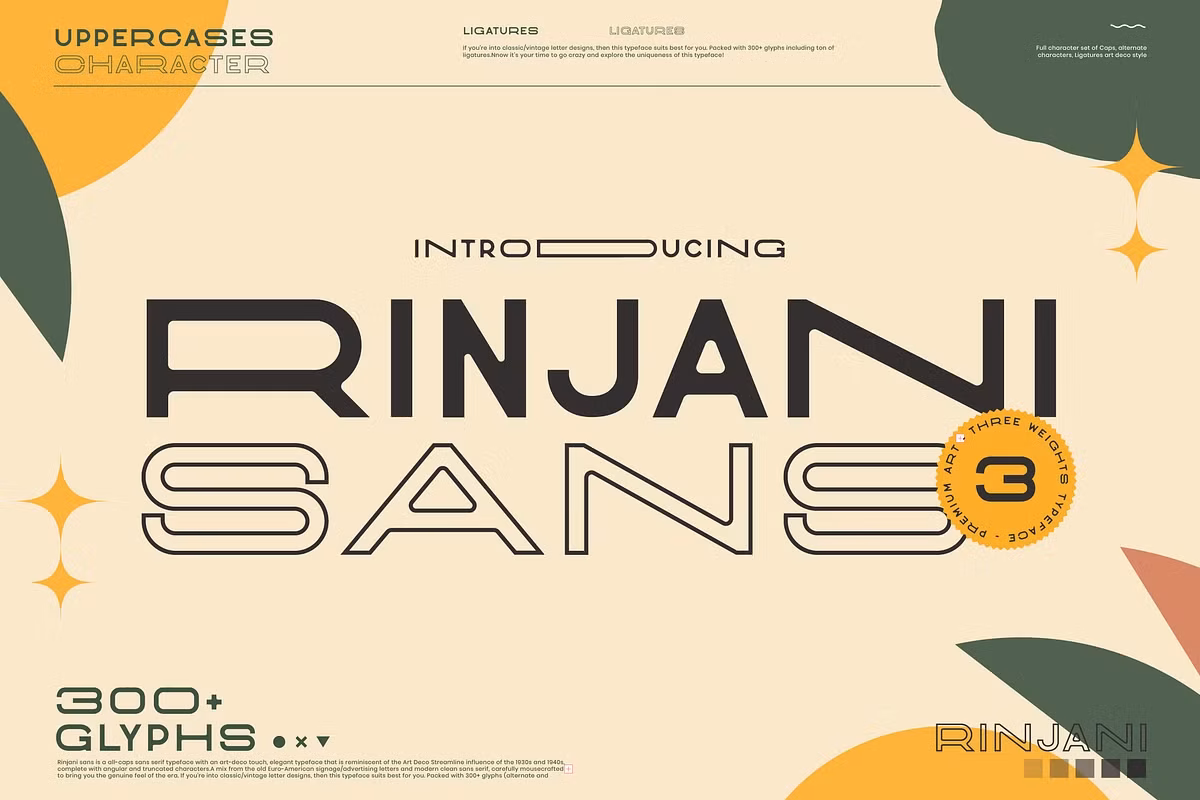
Rinjani Sans - Wide Stretch Typeface Free Download
Rinjani Sans – Wide Stretch Typeface Free Download
Rinjani Sans – Wide Stretch Typeface Free Download is a bold and modern sans serif font designed with wide proportions and clean, geometric lines. Ideal for powerful headlines, branding, posters, website headers, and logo design, Rinjani Sans commands attention while maintaining sleek professionalism.
Its extended width gives text a confident, grounded presence, making Rinjani Sans – Wide Stretch Typeface Free Download perfect for editorial layouts, tech-themed visuals, and creative campaigns that need a striking yet minimal touch. The font includes uppercase, lowercase, numbers, punctuation, and multilingual support for global design flexibility.